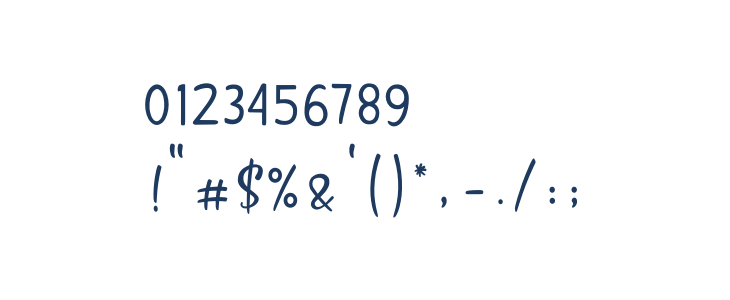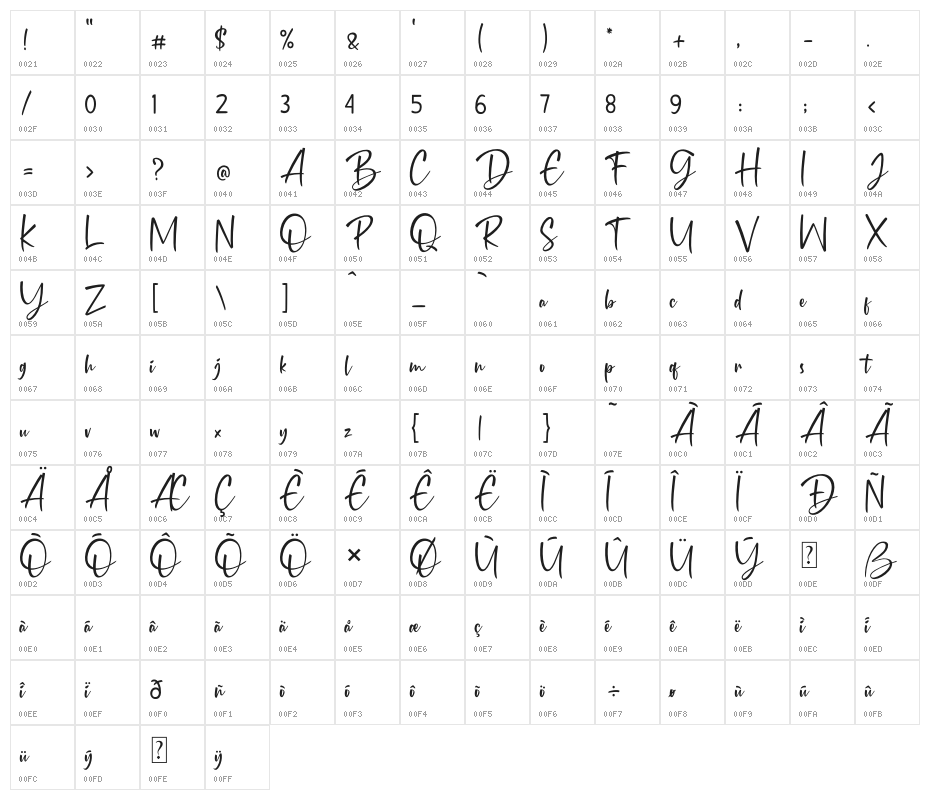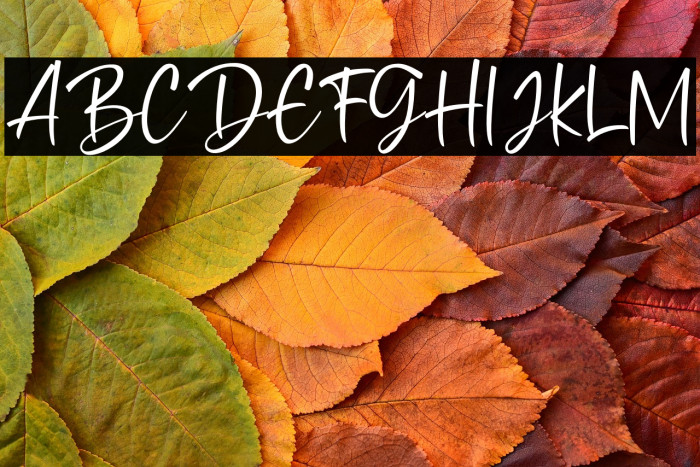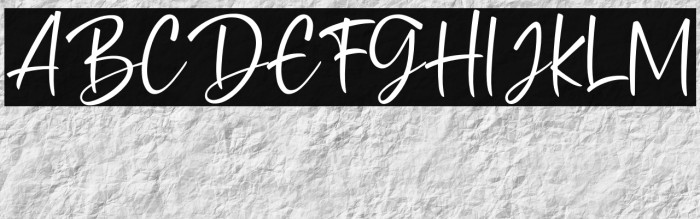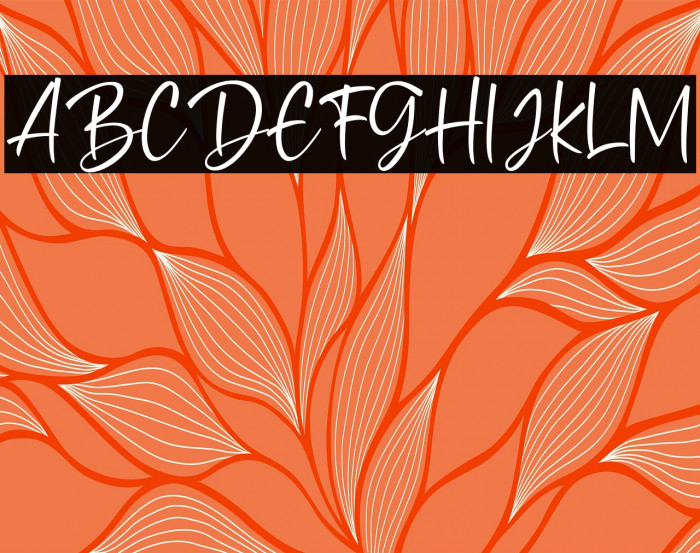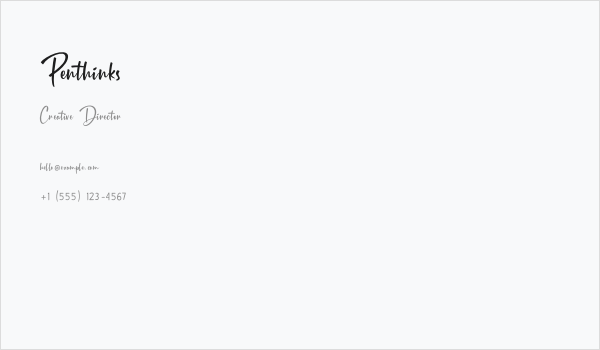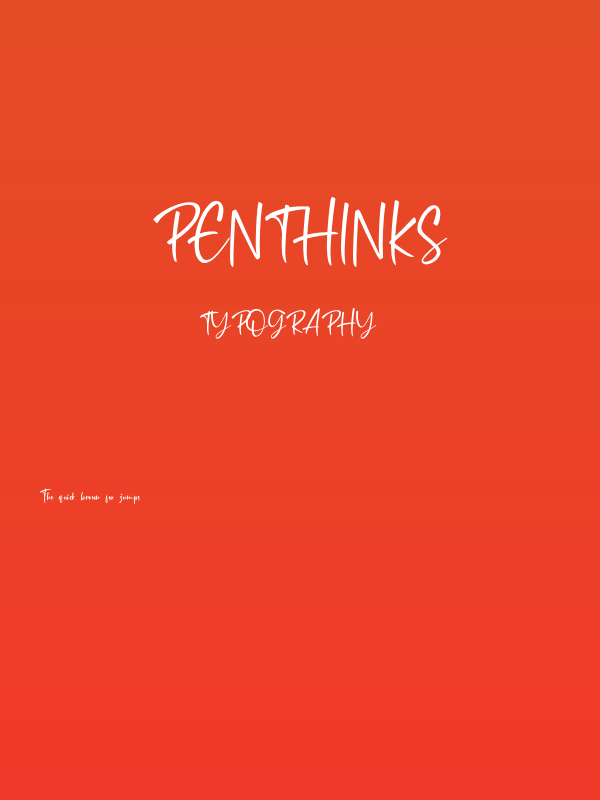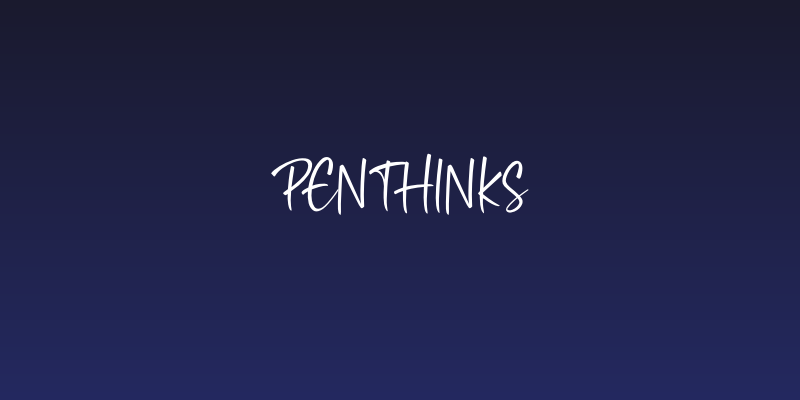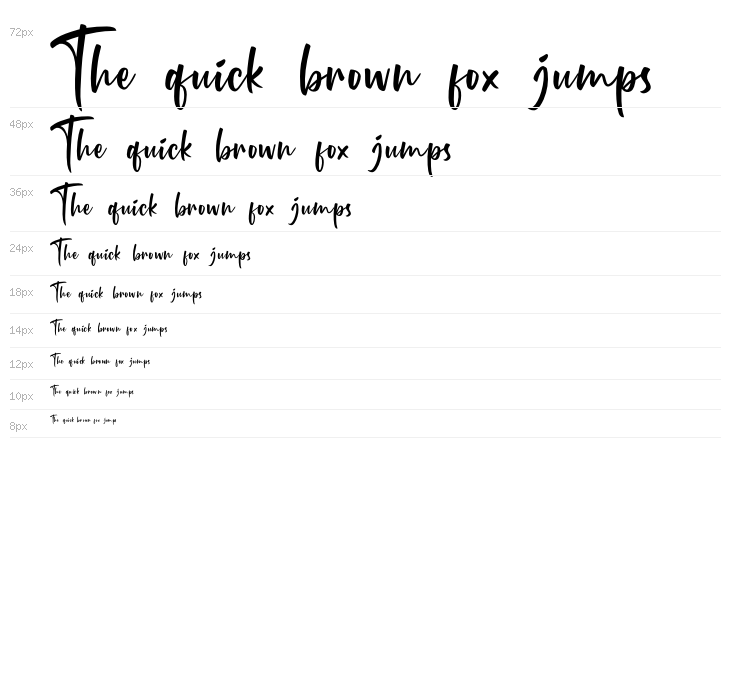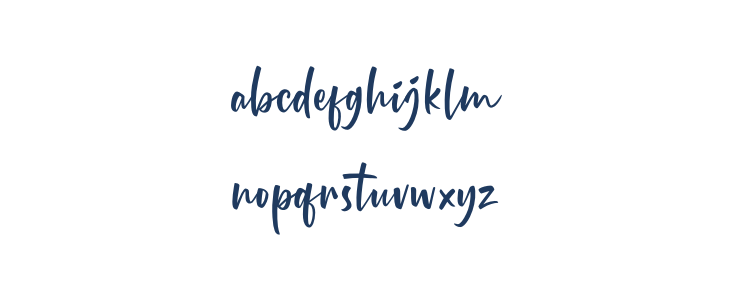
Penthinks Font
This font features a dynamic and expressive handwritten style, characterized by its fluid and flowing letterforms. The uppercase letters exhibit a playful yet elegant script, with each character maintaining a consistent slant and smooth curves. The lowercase letters complement the uppercase with a slightly more compact and rounded appearance, enhancing readability while retaining the overall artistic flair. The numerals are clear and distinct, matching the style of the letters with a touch of whimsy. Special characters are thoughtfully designed to integrate seamlessly with the rest of the font, making it versatile for various design needs.
| Use Case | Logos, Headlines, Invitations |
| Proposed Projects | Ideal for wedding invitations, greeting cards, branding projects, and social media graphics. |